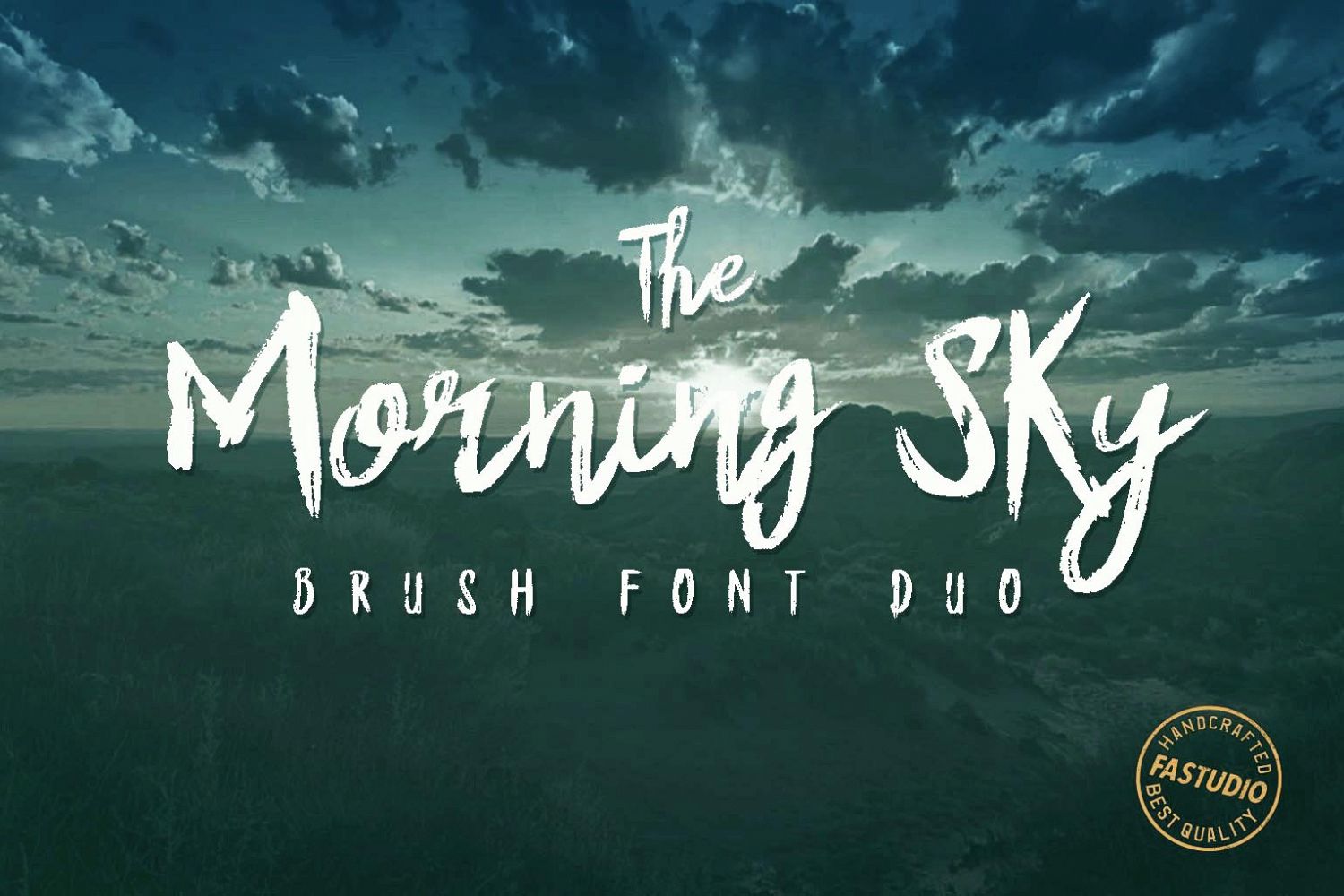
The Morning Sky Font Duo
Introducing The Morning Sky Font Duo
This is handmade brush typeface, comes with 2 fonts that have a nice combination.
Morning Sky is very good for logos, quotes, apparel, advertising, greeting cards and other design works.